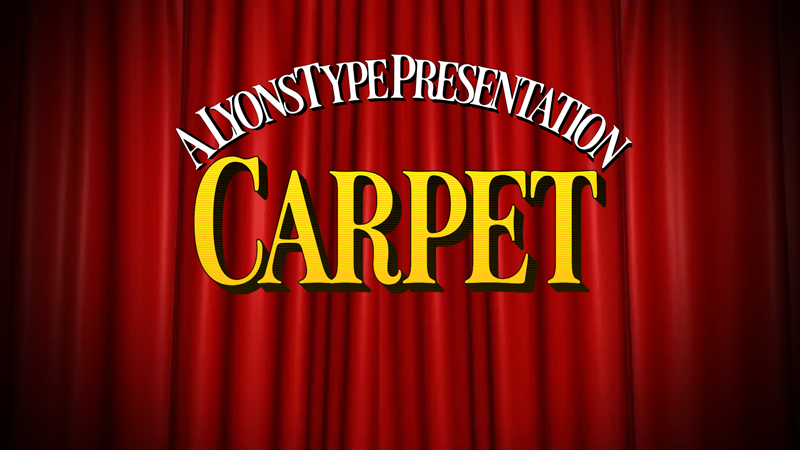
"Carpet" is a multi-functional old-style serif typeface that makes a good reflection of golden-era cinemas, posters, classical elements, and so much more. The font comes with three additional styles. Shadow, Gradient, and Gradient Shadow. These styles are very effective for an advanced way to apply gradients on the text, let alone the ability to manually apply gradients on text with Photoshop or other alternatives. All LyonsType fonts are freely available to download at: https://lyonstype.wixsite.com/home/typefaces For any inquiries, please contact me at lyonstype@gmail.com |